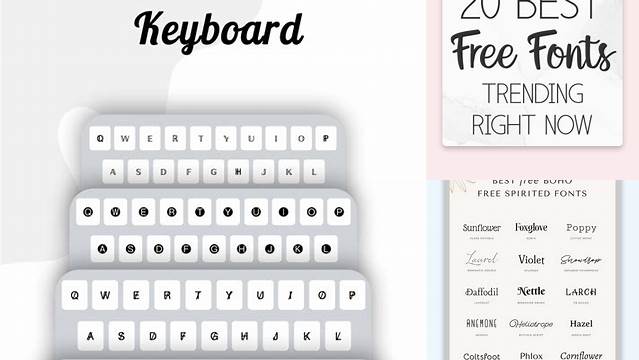
Font Keyboard Free Download: Your Guide To Stylish Texting
Hey guys! Are you looking to spice up your texts, social media posts, or creative projects? Want to go beyond the standard fonts and add a touch of personality to your words? Well, you're in the right place! Today, we're diving deep into the world of font keyboards, and how you can snag a font keyboard free download to transform your digital communication. We will cover everything from the best apps, what to consider, and how to make sure your new fonts work seamlessly across different platforms. Get ready to level up your text game!
What is a Font Keyboard? And Why Do You Need One?
So, what exactly is a font keyboard? Simply put, it's an app that replaces your standard keyboard on your smartphone or tablet, giving you access to a library of different fonts beyond the default ones. Think of it as a secret weapon for expressing yourself online. Instead of the plain, familiar text, you can use cool, stylish, and unique fonts that instantly grab attention. Imagine using a fancy cursive font for your Instagram captions, a bold, impactful font for your tweets, or even a quirky, playful font for your messages to friends. The possibilities are endless!
Why would you need a font keyboard? Well, there are a bunch of reasons. First off, it's all about standing out from the crowd. In a world saturated with digital content, it's easy for your message to get lost. Using a unique font helps you break through the noise and capture people's attention. Secondly, it's a fantastic way to express your personality. Your font choices can reflect your mood, your style, and your overall brand. Are you feeling elegant and sophisticated? Choose a classy serif font. Want to be playful and fun? Go for a bubble-letter style. Thirdly, font keyboards are great for creating visual interest. They can transform boring text into something visually appealing, making your content more engaging and shareable. Whether you're a social media enthusiast, a creative professional, or just someone who loves to express themselves online, a font keyboard can be a total game-changer. It's about making your words visually compelling and memorable.
The Benefits of Using a Font Keyboard
Let's break down the benefits even further. A font keyboard gives you a level of customization that you wouldn't otherwise have. You're not limited to the same old fonts that everyone else uses. You get to choose fonts that perfectly match your style and the message you want to convey. This is especially beneficial if you're trying to build a personal brand or a consistent aesthetic on social media. Consistency is key, and having a reliable font keyboard ensures that your posts always look on point.
Moreover, using a font keyboard can improve readability. While some fonts might be overly decorative and hard to read, many font keyboards offer a selection of fonts that are both stylish and legible. This means you can maintain visual interest without sacrificing the clarity of your message. This is critical for any form of communication, especially if you're using a font keyboard for work or business purposes. Readability ensures that your audience can easily understand what you're trying to say.
Another huge benefit is the ease of use. Most font keyboard apps are incredibly user-friendly. They're designed to be simple to install and integrate with your existing apps. Within minutes, you can start using your new fonts on platforms like Instagram, Facebook, Twitter, WhatsApp, and more. This ease of use makes them accessible to everyone, regardless of their tech skills.
Finally, using a font keyboard can boost your creativity. Having access to a wide variety of fonts can inspire new ideas and help you experiment with different styles. It encourages you to think outside the box and find unique ways to express yourself. Who knows, you might even discover a new favorite font that perfectly captures your personality!
Best Font Keyboard Apps for Free Download
Alright, let's get down to the good stuff: where to find the best font keyboard apps for free download! There are tons of options out there, but here are a few of the top contenders, known for their extensive font libraries, user-friendly interfaces, and compatibility with popular platforms. We will list each with a brief review to help you choose the right one for your needs. Remember to always check the reviews and permissions before downloading any app.
1. Stylish Text
Stylish Text is a popular choice, and for good reason. This app boasts a massive collection of stylish fonts, including everything from elegant calligraphy to bold, modern styles. It's super easy to use – just type your text and instantly see it transformed into different font styles. You can then copy and paste the text wherever you need it. The app is compatible with most social media platforms and messaging apps. Stylish Text also offers a handy feature that allows you to create personalized styles by combining fonts and adding decorations. It's a great choice for anyone who wants a wide variety of font options and a simple, intuitive interface. This is one of the best font keyboard free download options around.
2. Fonts
Fonts, also known as Fonts Keyboard, is another top-tier option that provides a vast selection of fonts. It's designed to seamlessly integrate with your device and provide a smooth typing experience. You can switch between fonts with a simple tap. The app supports a variety of social media and messaging platforms. Fonts often includes features that allow you to customize your font preferences and even create your own text styles. The interface is clean and straightforward, making it easy to navigate and find the perfect font for any occasion. The ease of access and variety make it a great font keyboard free download.
3. Font Keyboard - Cool Fonts